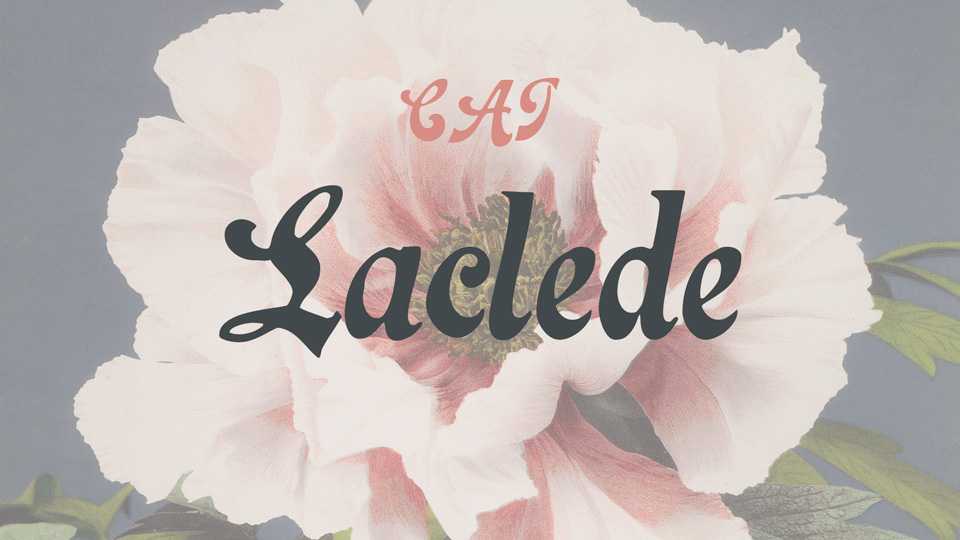
Download Laclede CAT font, beautiful retro script with fancy letters. Laclede CAT perfectly suits for vintage inspired designs, logo, branding, posters and more.